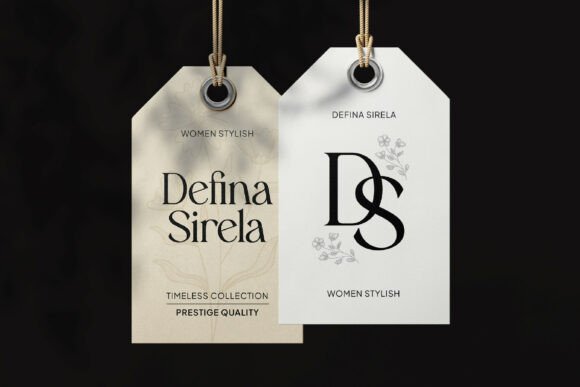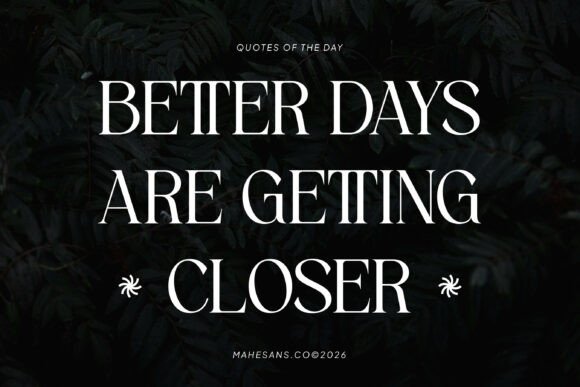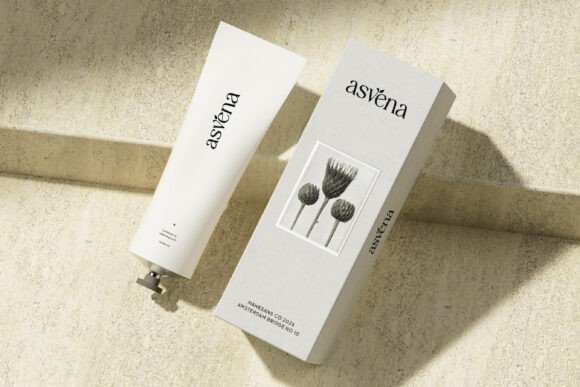
Introduction to Fiagio Font
Fiagio is a vintage-inspired serif typeface designed to bring a graceful and confident tone into your visual identity.
Built with elegant proportions, stylish curves, and high-contrast strokes, this typeface blends timeless editorial aesthetics with contemporary branding needs Fiagio works perfectly for luxury branding, fashion labels, wedding stationery, cosmetic packaging, magazines, logotypes, social media graphics, and high-end product presentations.
Key Features of Fiagio Font
Why Choose Fiagio Font?